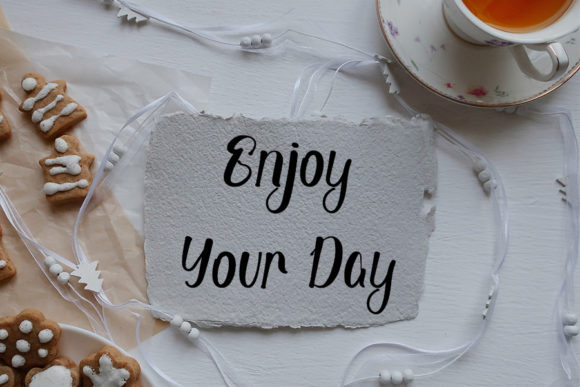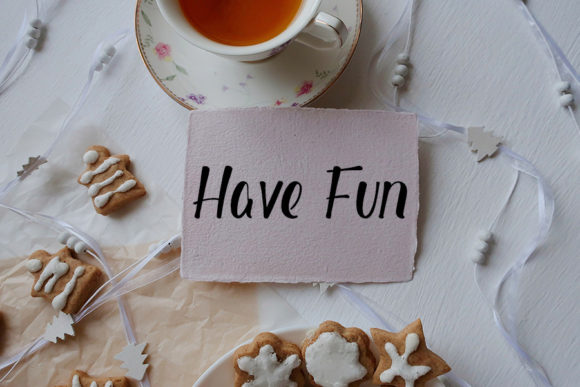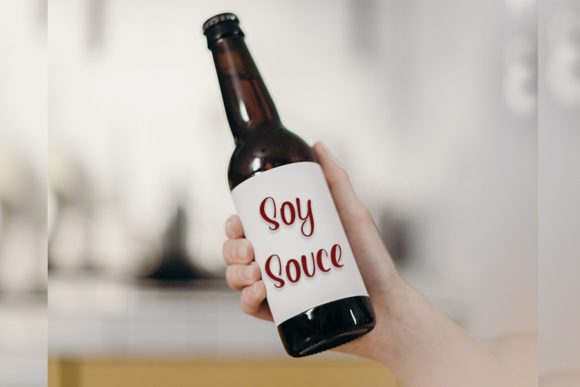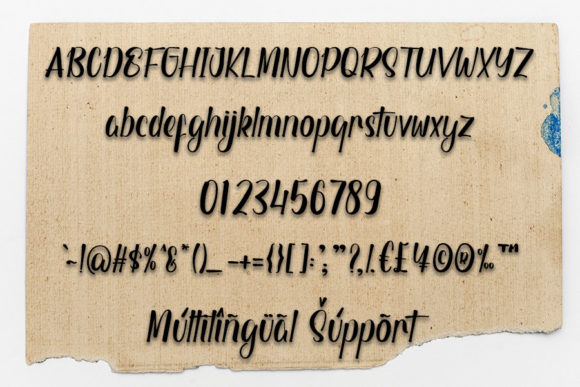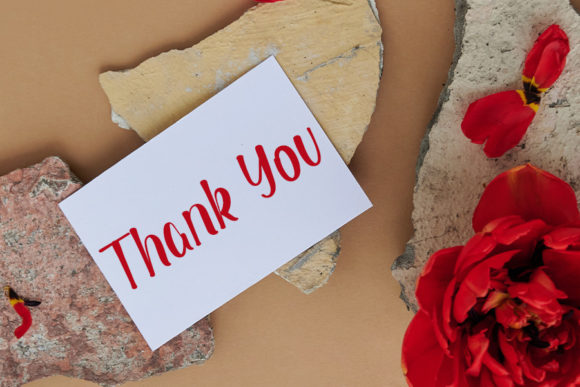
The Perfect Blend of Elegance and Character: Unveiling the Alphabetta Font
Remember that moment when you stumbled upon the perfect font to elevate your design project? The one that took your breath away and made you feel like you’d finally found your creative soulmate? For designers, this moment is a recurring phenomenon, and it’s exactly what inspired the creation of the Alphabetta Font.
This stunning handwritten font is a masterful blend of contemporary style and timeless classic calligraphy. With its bold, stylish letters, the Alphabetta Font is sure to add an extra layer of sophistication to any design project. Whether you’re working on a branding campaign, a marketing brochure, or a social media graphic, this font will undoubtedly leave a lasting impression.
Alphabetta Font Key Features
- Font Family: Alphabetta Font is a unique, hand-drawn sans-serif typeface designed for modern and creative projects.
- Unique Characteristics: Features a distinctive, cursive-like feel with a modern twist, making it perfect for branding, advertising, and editorial projects.
Designer Review: Alphabetta Font
Overall, I’d say Alphabetta Font is an interesting choice for designers looking to add some personality to their projects. Here’s my honest take on this font:
- Unique letterforms: Alphabetta Font has a distinct, playful style that’s sure to grab attention. The letter ‘Q’ and ‘R’ are particularly well-designed, with a fun, bubbly feel that adds to the font’s charm.
- Good legibility: Despite its quirky style, Alphabetta Font is surprisingly easy to read, even at smaller font sizes.
- Customization options: The font comes in a range of weights and styles, giving designers plenty of flexibility when it comes to choosing the right look for their project.
- Limited typographic support: While Alphabetta Font looks great in short blocks of text, it can get a bit messy when used in longer passages or complex layouts.
- Not ideal for body text: The font’s unique style can make it difficult to read large blocks of text, making it better suited for headlines or titles.
Alphabetta Font is a fun, eye-catching choice for designers who want to add some personality to their projects. While it has its limitations, it’s a great option for titles, headings, and other short blocks of text. Just be mindful of its limitations when using it for body text or complex layouts.
Alphabetta Font is ideal for modern branding, logos, and graphics. It’s also suitable for use in presentations, documents, and digital content. Use it to add a touch of sophistication and elegance to your designs.